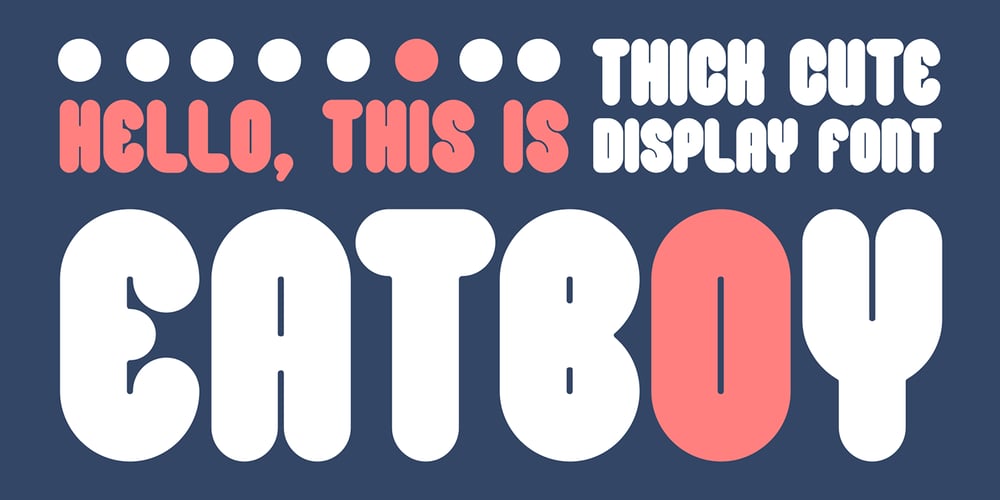
Eatboy Font Family was designed by Icep Anwar Fadhil and published by Figuree Studio. Eatboy contains 2 styles and family package options. Say hello to Eatboy font.Made with love and joy. Comic look, Bold, Thick, so it will make your design more beautiful, cute, fun, and colorful. It comes In two awesome styles, regular and italic.